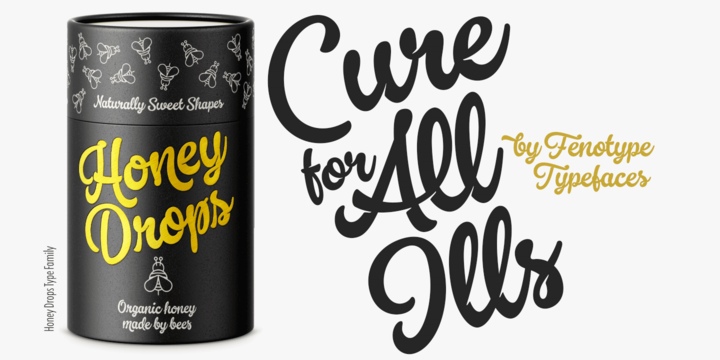
Honey Drops Font
Honey Drops Font is ideal for bakery logos, organic food packaging, children's book titles, craft store signage, handmade product labels, sweet shop branding, greeting cards, nursery decorations, artisan market displays, and cozy café menus.
What makes Honey Drops Font exciting is its delightfully organic hand-lettered style that radiates warmth and sweetness through every carefully crafted curve. This charming typeface features flowing letterforms with gentle drips and soft edges that perfectly capture the essence of golden honey and artisanal craftsmanship.
Honey Drops Font family includes regular and bold weights with decorative swashes and alternate characters, providing designers with delightful options for creating warm, inviting brand personalities and heartfelt communications.
Honey Drops Font embodies comfort and authenticity with its naturally imperfect letterforms that mirror the beauty of handcrafted artistry. This endearing typeface creates instant emotional connection through its approachable design, making it perfect for brands seeking to convey genuine warmth, quality, and personal touch in their communications.
The complete character set includes uppercase and lowercase letters, numerals, punctuation, and decorative elements that enhance the font's versatility in creative applications. Honey Drops Font supports multiple languages and includes stylistic alternates for personalized design solutions.
Honey Drops Font performs beautifully in both digital and print environments, maintaining its handcrafted charm whether displayed on rustic websites, printed on kraft paper packaging, or featured in storefront signage. The font's organic texture adds tactile appeal to any design project.
Creative designers and small business entrepreneurs appreciate how Honey Drops Font instantly communicates values of quality, care, and authenticity. Its distinctive personality helps brands stand out in competitive markets while building emotional connections with customers seeking genuine experiences.
Whether you're designing artisanal food branding, creating handmade product packaging, or developing cozy hospitality communications, Honey Drops Font provides the warmth and authenticity essential for connecting with audiences who value quality and craftsmanship.